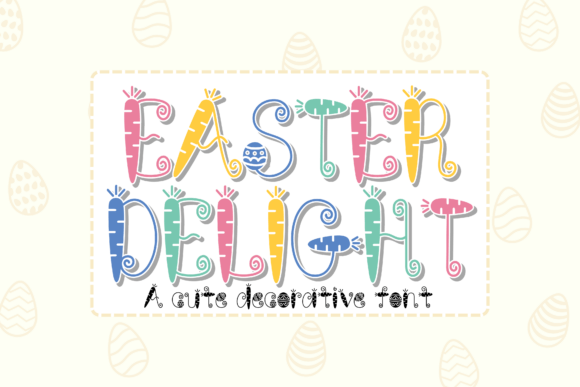
Spring into Creativity with Easter Delight Font
Have you ever stared at a blank page, feeling stuck and uninspired? Maybe you’re brainstorming ideas for an Easter-themed project, and you need a spark of creativity to bring it to life. That’s where the Easter Delight Font comes in – a charming, one-of-a-kind font that’s sure to add a playful touch to your work.
With its adorable decorations featuring carrots, Easter eggs, and cute curves, the Easter Delight Font is perfect for designers who want to add a friendly and fun vibe to their projects. Whether you’re creating invitations, designing charming prints, or making eye-catching social media graphics, this font is a valuable addition to your design toolkit.
Easter Delight Font Key Features
- Font Family: Easter Delight
- Character Set: Supports a wide range of languages, including Latin, Cyrillic, and Greek
- Unique Characteristics: Hand-drawn illustrations, intricate details, and a whimsical feel, making it perfect for Easter-themed designs, invitations, and greeting cards
Easter Delight Font Review
I recently had the chance to work with the Easter Delight Font, and I must say it’s a unique addition to any design project. Here are my thoughts:
- ✨ The font’s whimsical design perfectly captures the essence of Easter, making it ideal for spring-themed projects.
- ✨ The font comes in a range of sizes and styles, allowing for a good amount of customization and flexibility.
- ✨ The Easter Delight Font is highly legible, even at smaller font sizes, which is a must for any design project.
- ⚠️ The font’s design can feel a bit over-the-top, which may not be suitable for more minimalist design projects.
- ⚠️ The Easter Delight Font is limited to uppercase letters, which can make it difficult to use for longer blocks of text.
Overall, the Easter Delight Font is a great addition to any design project that needs a fun and playful touch. However, it may not be the best choice for more serious or minimalist projects.
The Easter Delight Font is perfect for creating festive designs for Easter-themed projects, such as:
- Easter cards and invitations
- Hoppy Easter banners and signs
- Easter egg decorating templates
Remember to adjust the font size and style to balance with the rest of your design for a cohesive look.